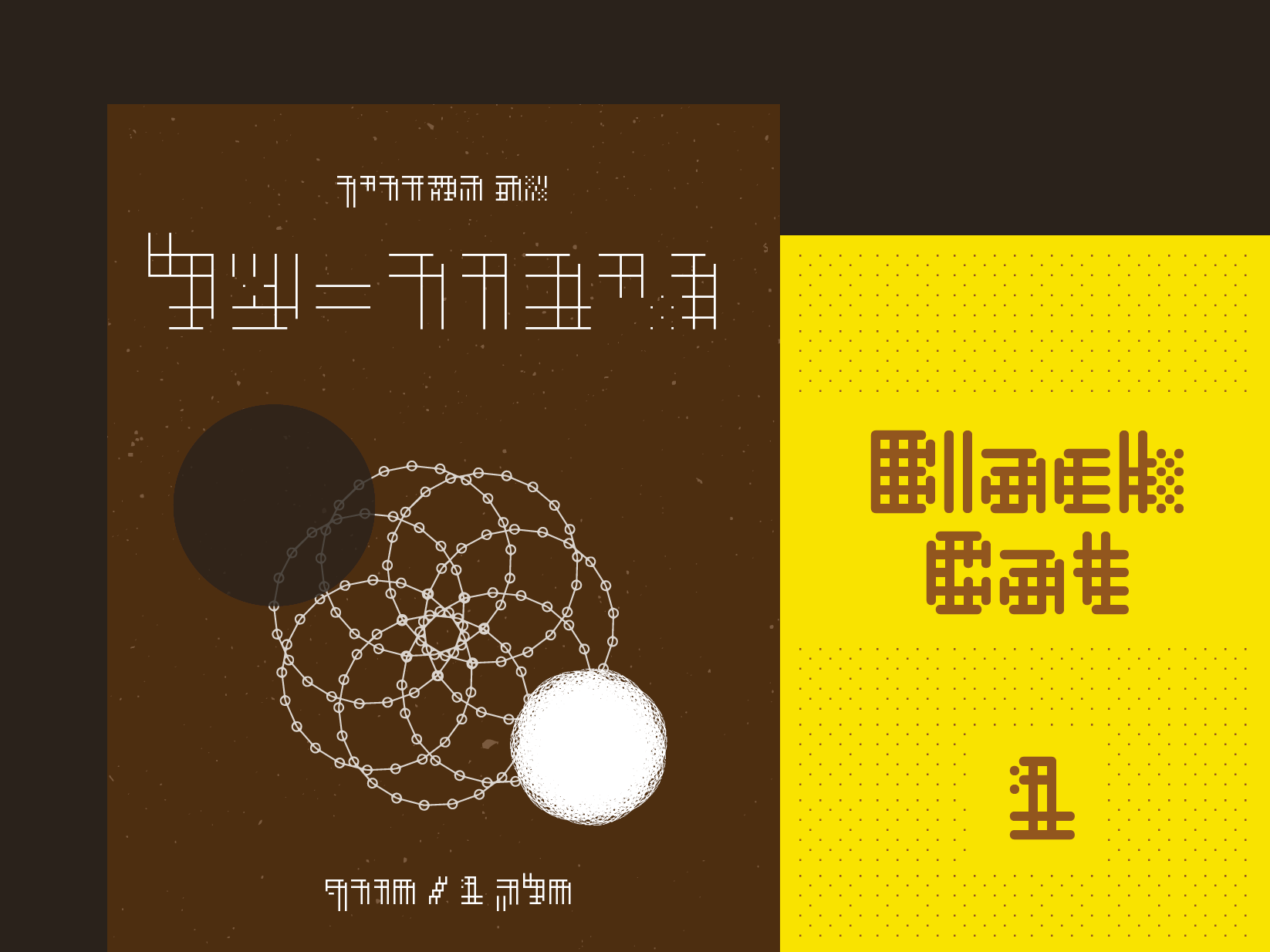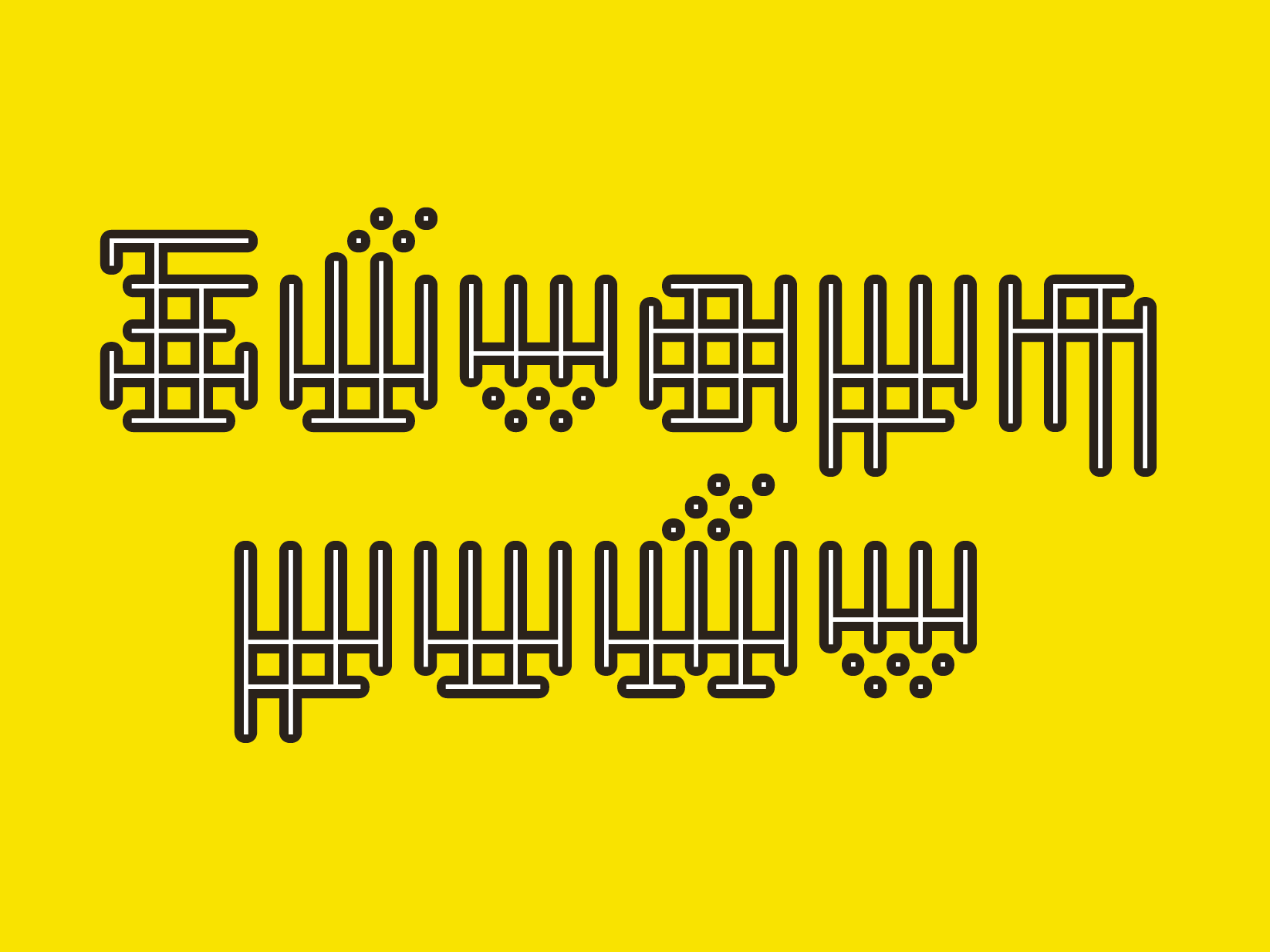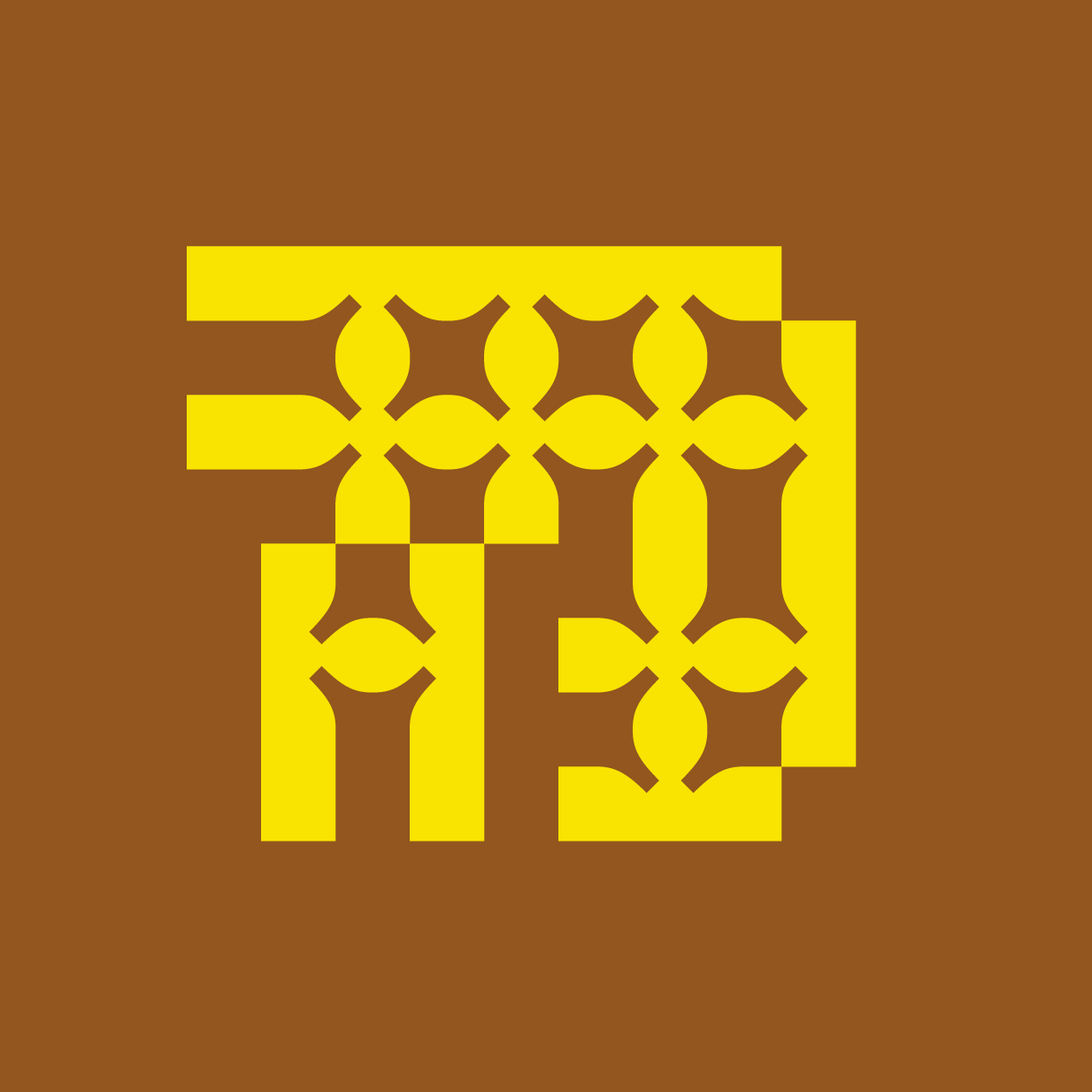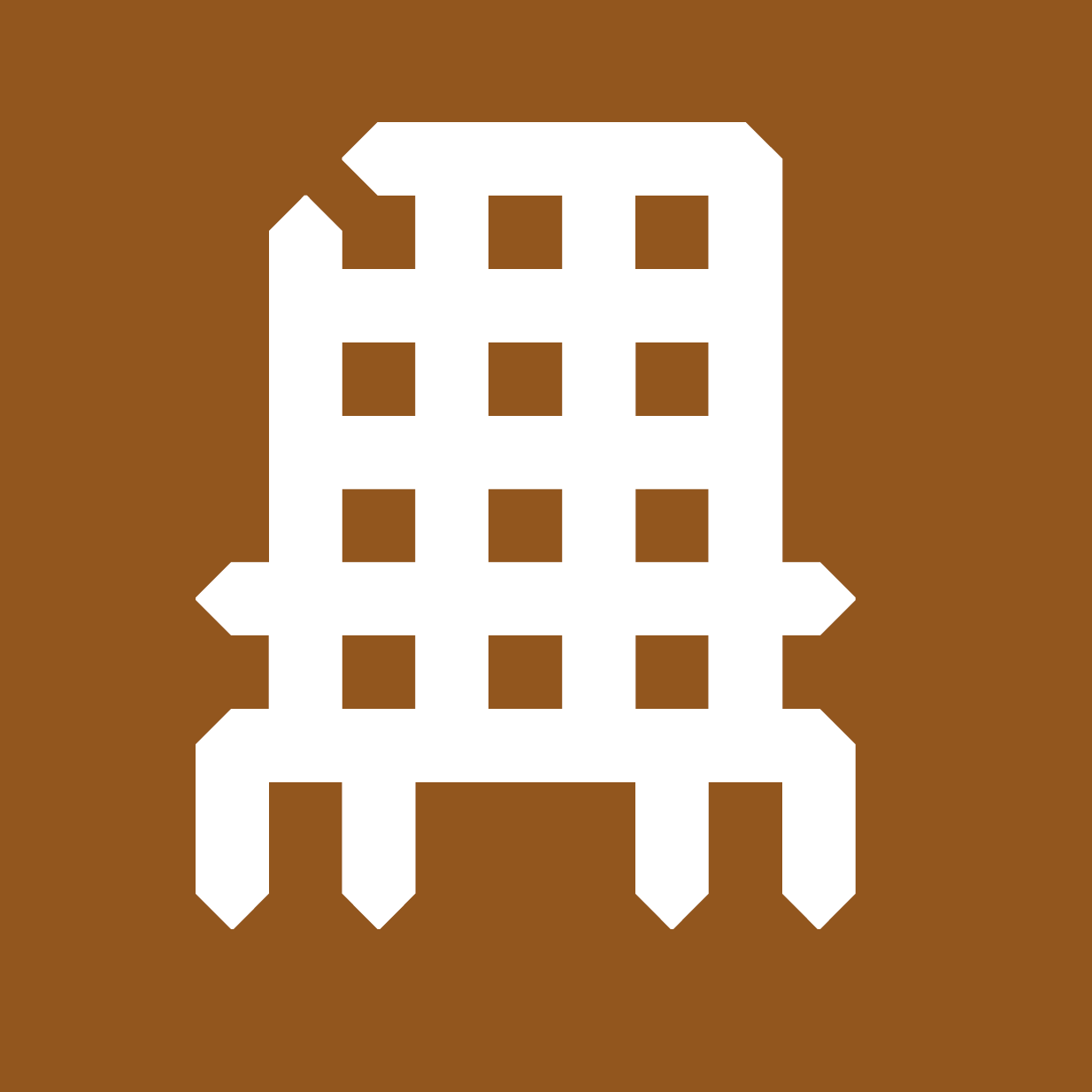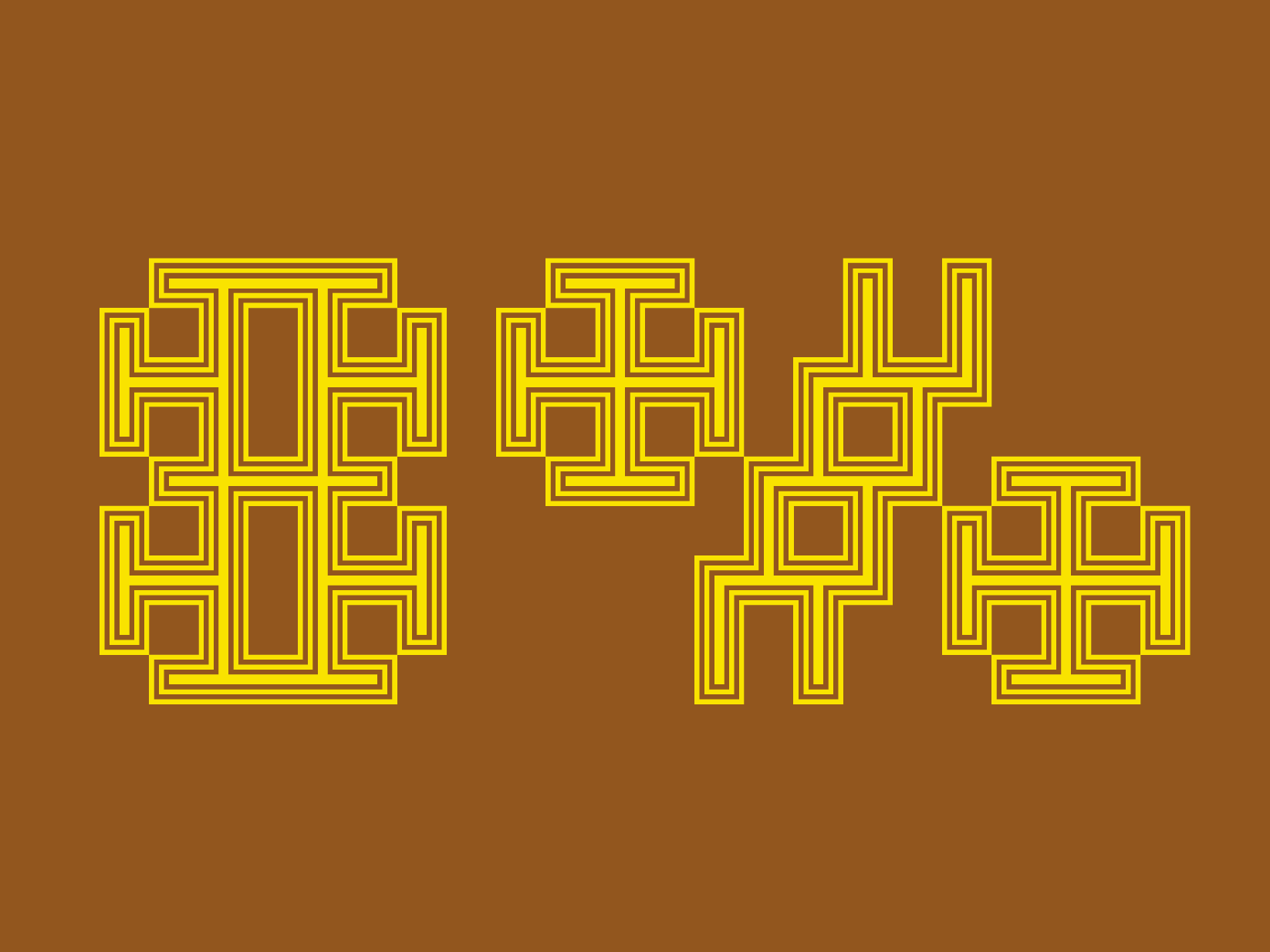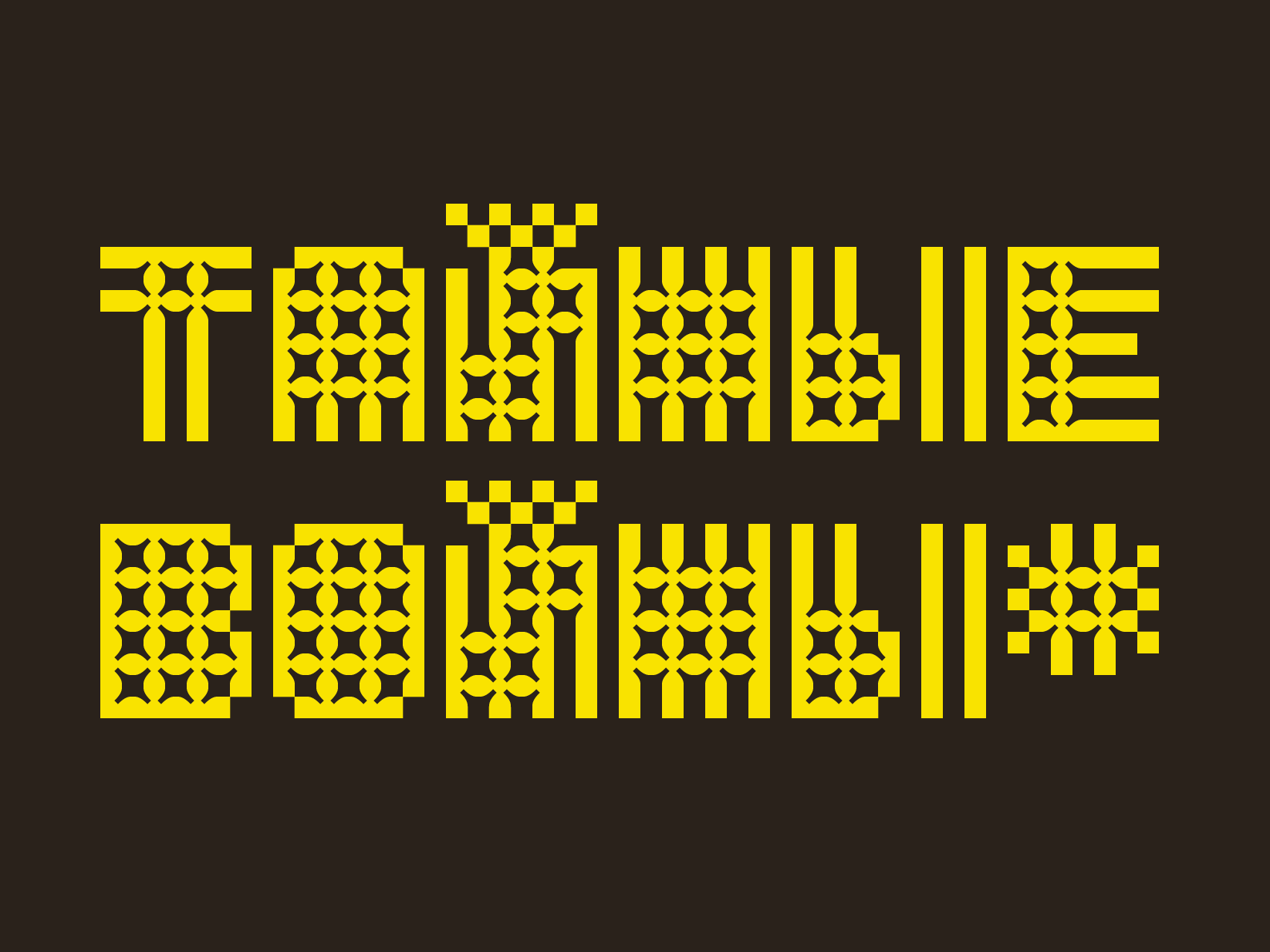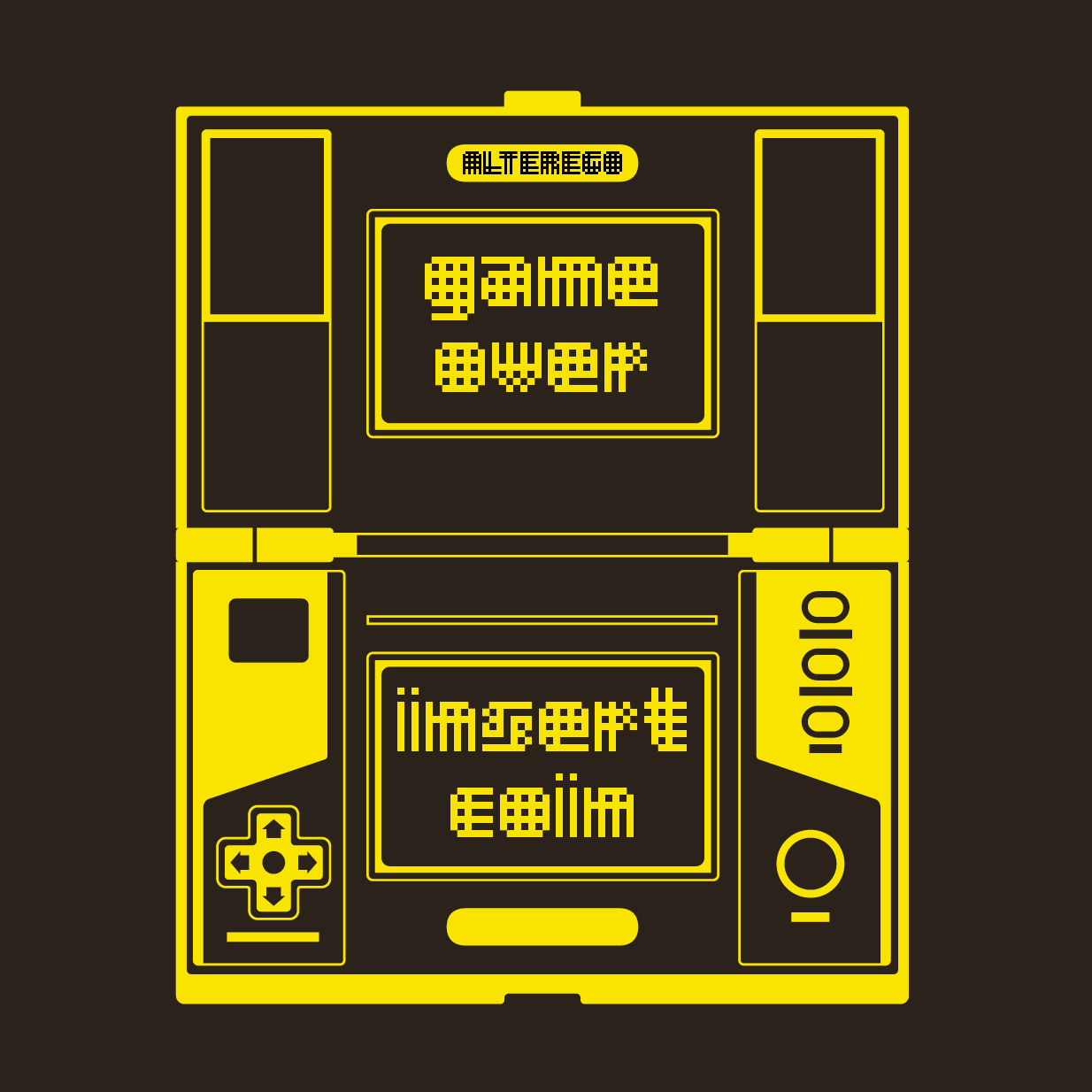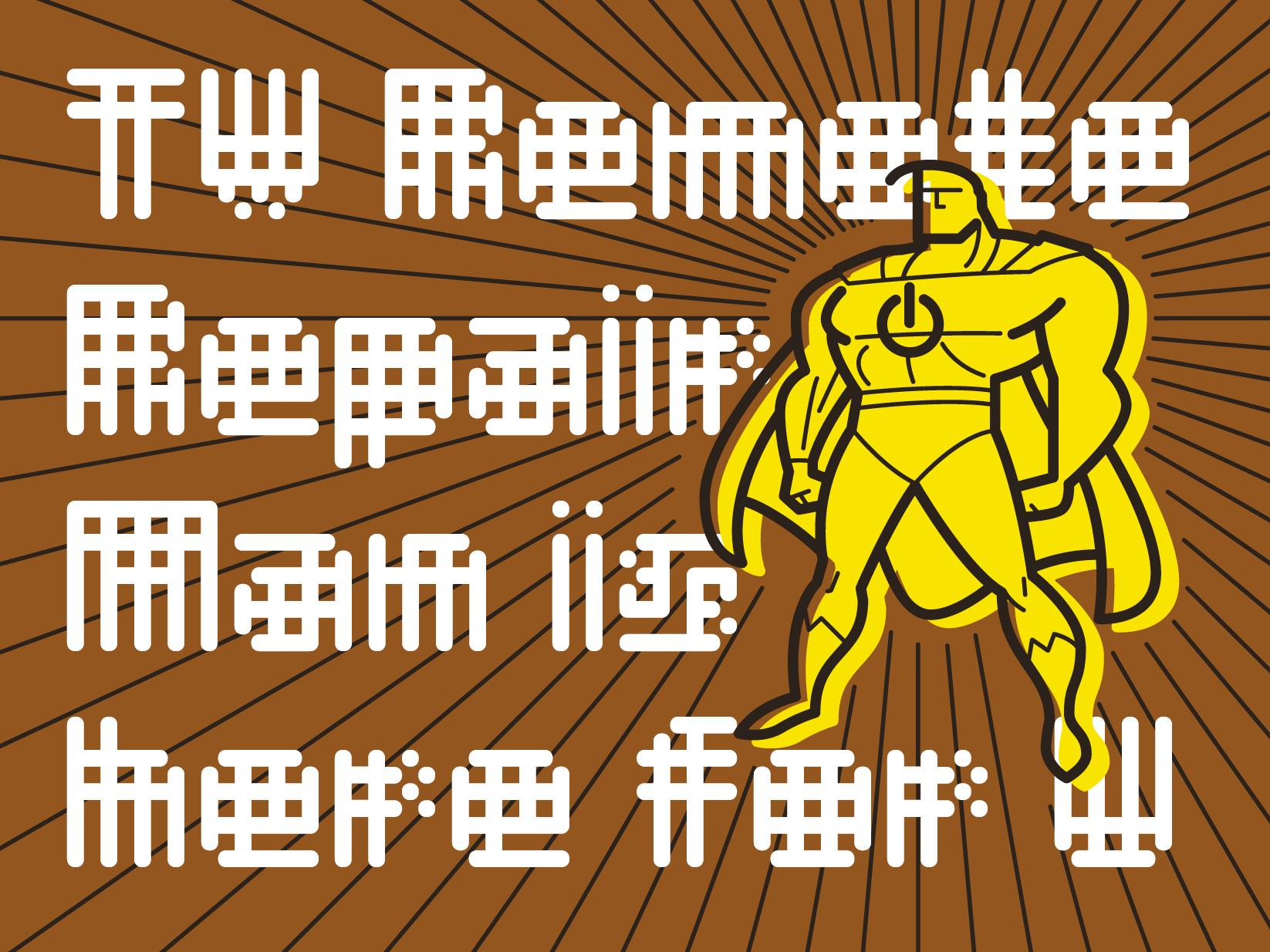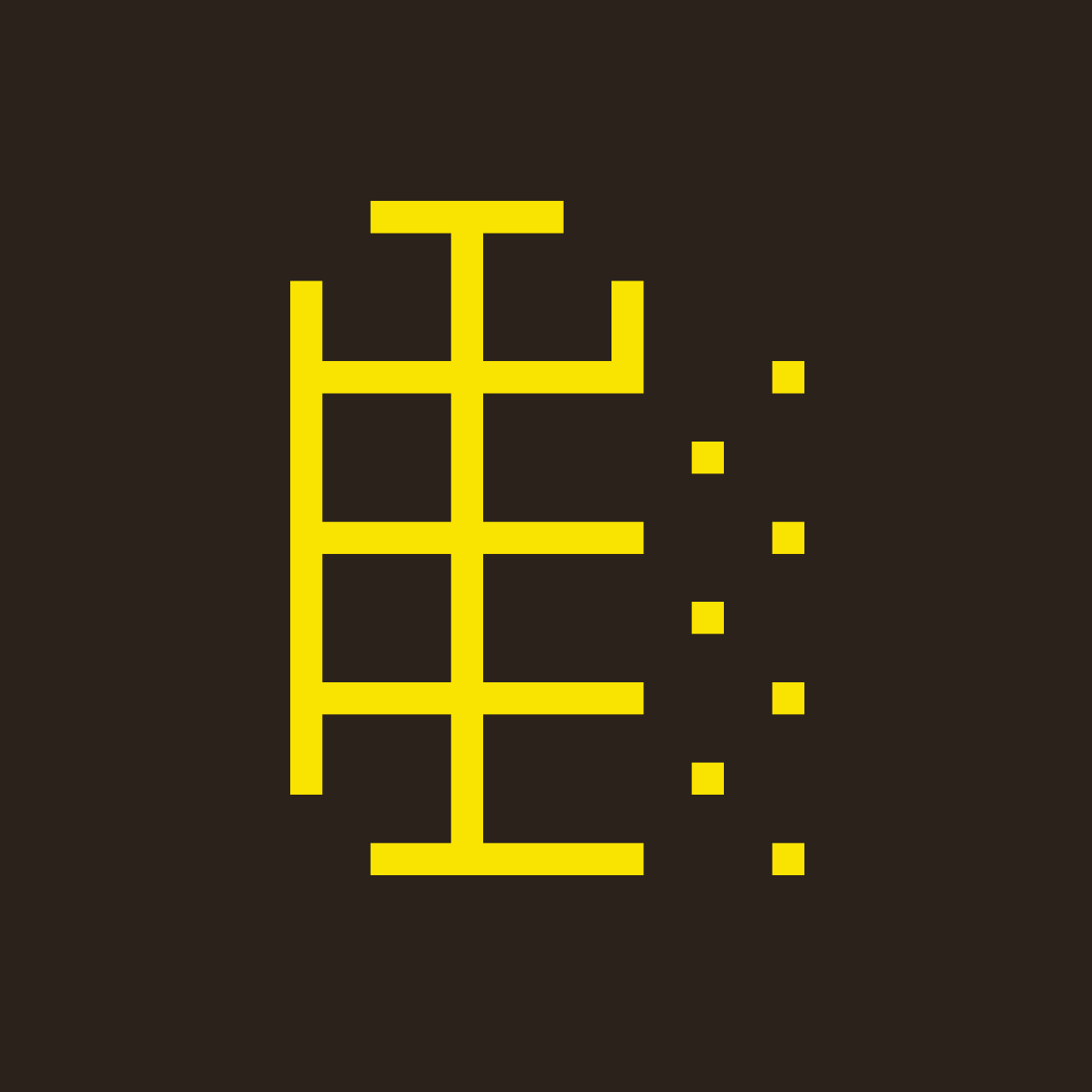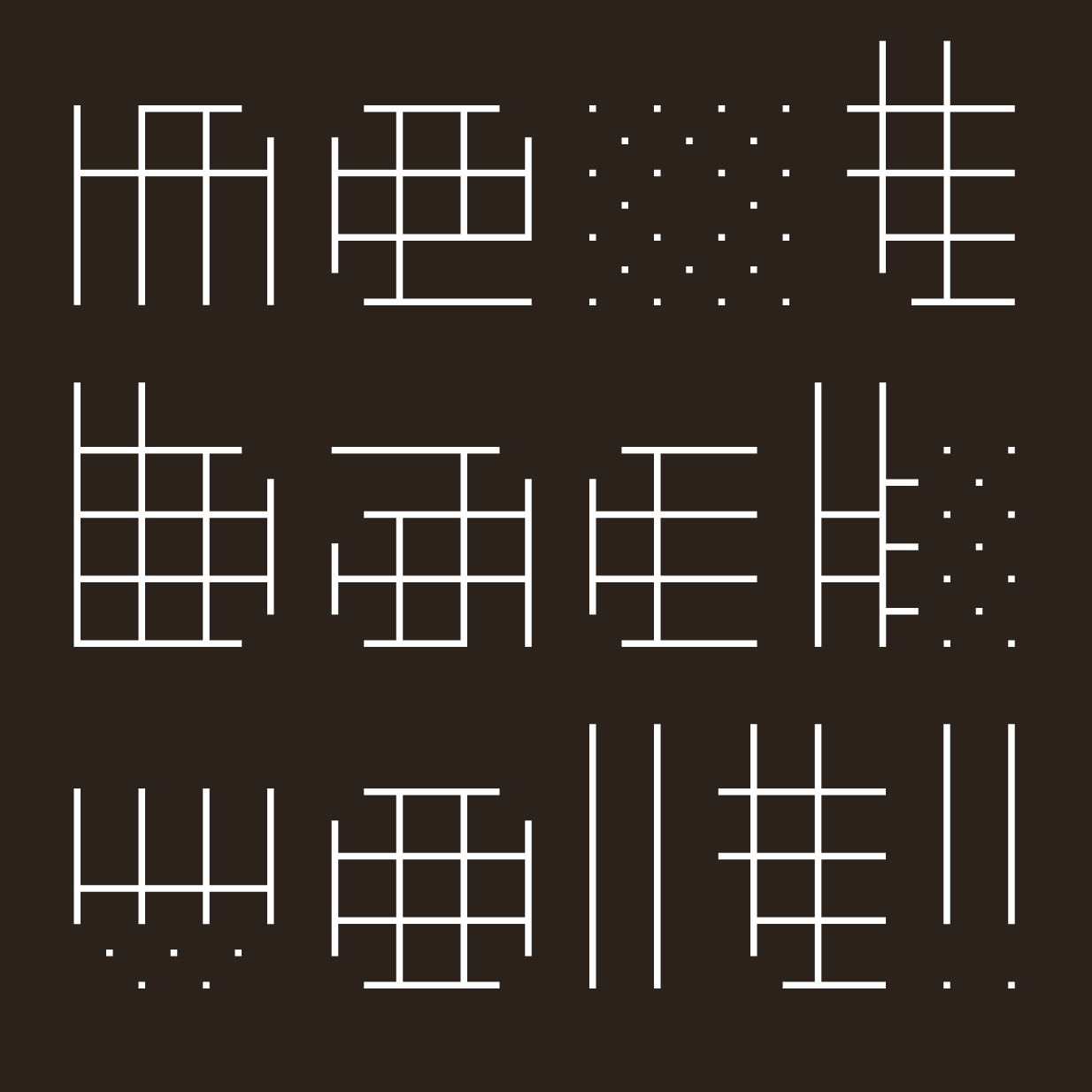
Alterego
Pieter van Rosmalen may be best known for his versatile text faces like the Nitti series. Yet there are two souls, thankfully, dwelling in his chest. His fascination for type design began with pixels and modular display fonts — a genre that still excites him even though progress has long rendered bitmap fonts technically unnecessary.
The Alterego type family started in 2001 by layering the same bitmap letters on top of each other in Photoshop, then playing with transparency and layer sequence. In 2010 a previous version was released as part of Bold Monday’s Pixel Package, but was discontinued. Nevertheless, van Rosmalen didn’t want to let it disappear completely as he was still fond of the typeface — in fact, it’s one of his favorites. He decided to develop it further and prepare it for today’s design possibilities by adding more weights and three display styles (Alterego Big). The criss-cross of strokes progress over the now five weights from a thin waffle grid to a closed pattern of squares. All fonts share glyph widths across styles so they can easily be layered, individually coloured or even animated to striking effects. In this way, the otherwise one-dimensional bitmaps acquire an interesting spatiality and depth.
To make the new Alterego the versatile one among the chequered display typefaces, the fonts sport a fully fledged Latin Extended character-set including support for Vietnamese, Greek, Extended Cyrillic and Hebrew. And as a special bonus, we are offering a hearty variant for free (basic Latin character set).